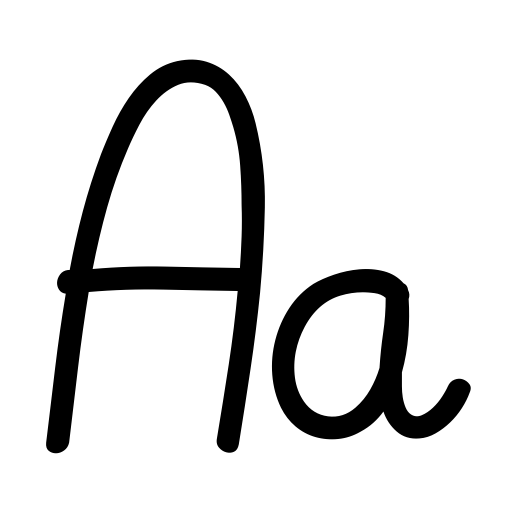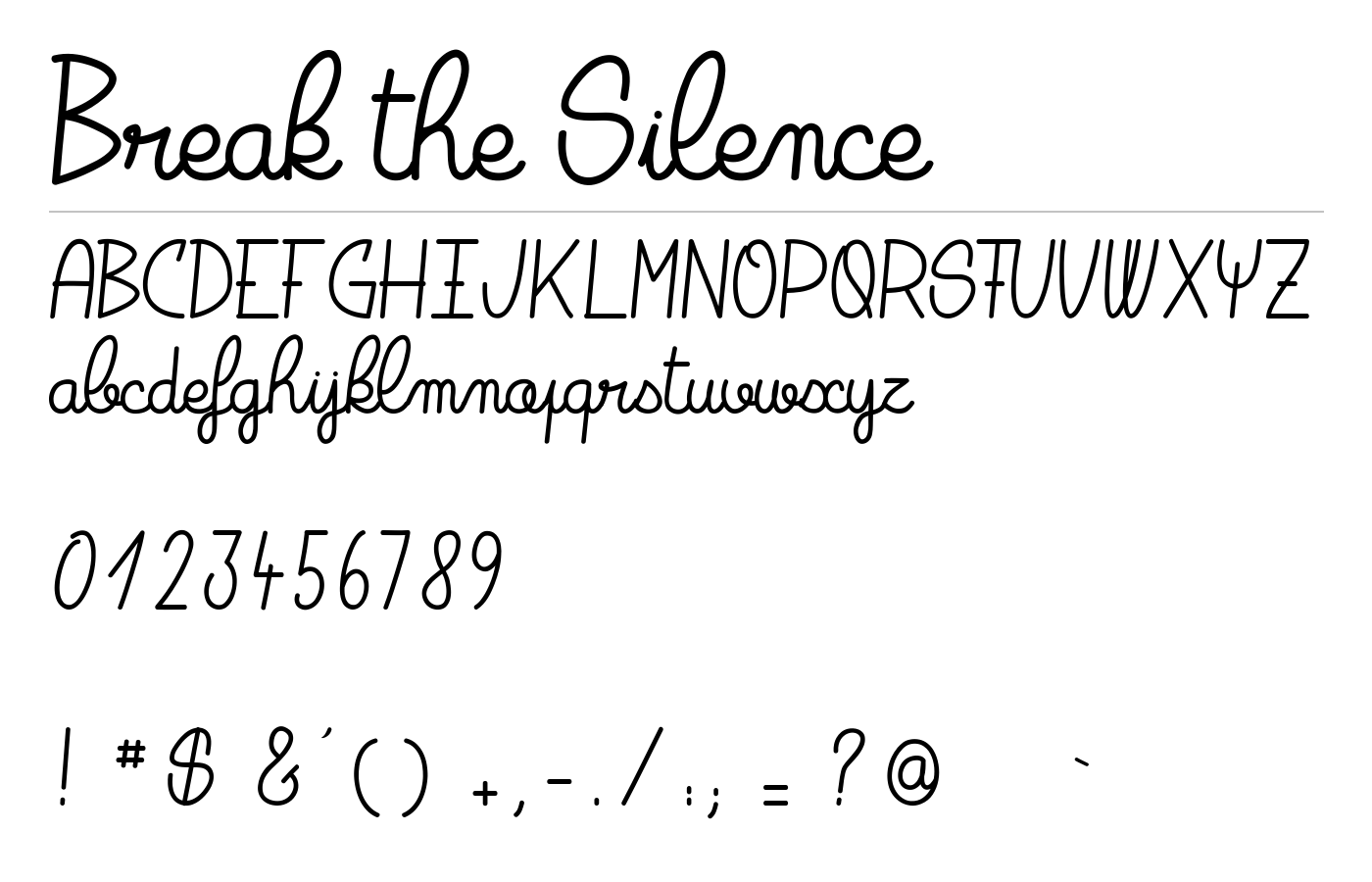
Break the Silence is a playful, handwritten script font characterized by its light weight and casual, connected letterforms. Its tall x-height and softly rounded strokes give it a friendly and approachable feel, making it ideal for informal branding, personal projects, or creative headlines that seek to convey warmth and personality. This font works well in contexts needing a natural, human touch, such as invitations, greeting cards, or lifestyle blogs.
Break the Silence Font
About Break the Silence Font
| Designer | dcoxy Medina Gregory |